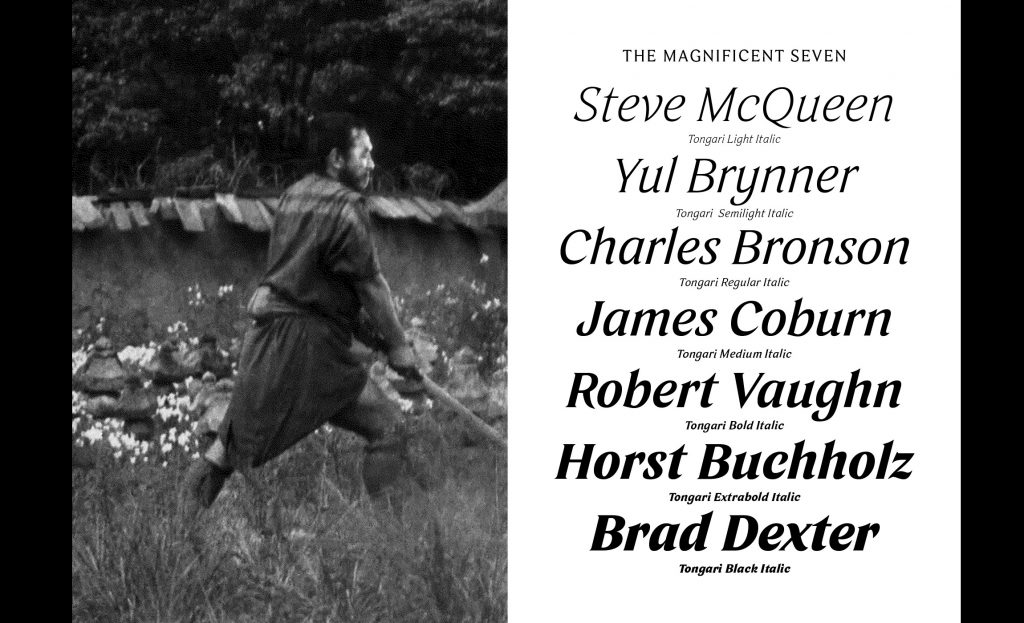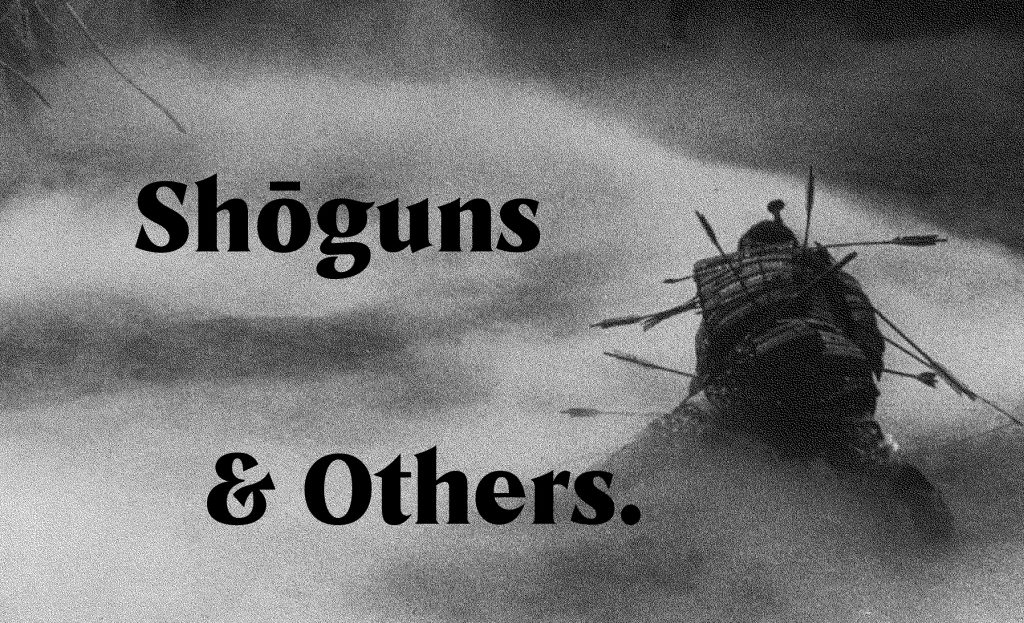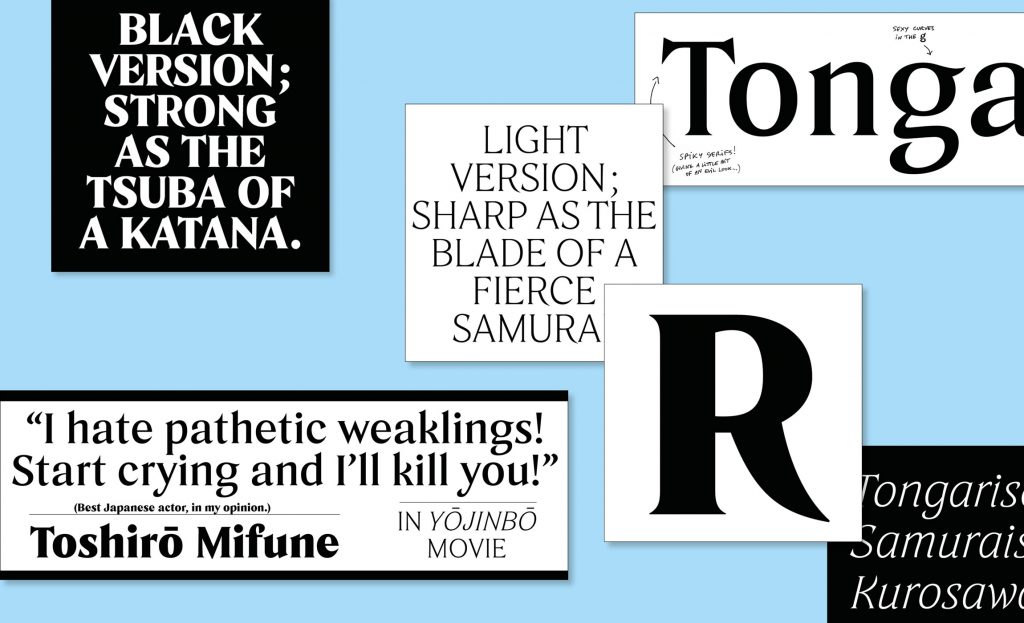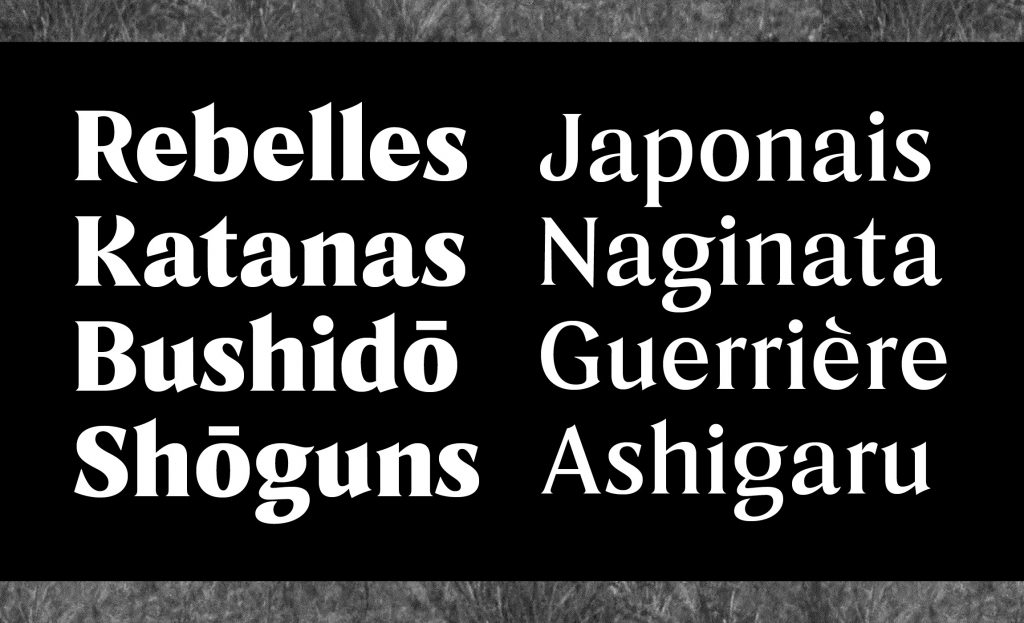
Name: Tongari Display
Designer: Émilie Rigaud
Foundry: A is for fonts
Back Story: Both Tongari Display and its companion Tongari Text are inspired by the razor-edged blades of samurai swords. The typeface comes in seven weights, from light to black, each standing in for one of the seven samurai of the legendary Akira Kurosawa film of the same name. In the film, a group of samurai unites to protect a village from marauding bandits. Each samurai has his own area of strength—the high-octane, impulsive, and comic actions of Kikuchiyo (played by Toshiro Mifune) stand in sharp contrast to the wise, patient leadership strategies of Kambei (Takashi Shimura), for example—but together they form a seamless team. Likewise, the delicate strokes of Tongari Display Light stand up to the assertive, shouty contours of the Black type without feeling less powerful by comparison.
Rigaud began designing the text face with medium-weight, high-contrast letterforms sporting very sharp endings, but found the characters too intense for good legibility over long passages of type. She decided to back-burner them for use in a display version later. “I refined the shapes of Tongari Display by hand over a long process,” she says. “I always do multiple sketches to craft the letters—print, redraw, scan it again—to give some small imperfections to a design and avoid the too-cold, perfect appearance that sometimes happens when using digital tools alone.”
Why’s it called Tongari Display? Tongari means “sharp-pointed” in Japanese.
What are its distinguishing characteristics? Tongari Display’s finely honed letterform terminals are its most notable characteristic. The capital R and K directly mirror the shape of the blade of a Japanese samurai sword (katana). The display characters feature a strong stroke contrast, higher x-height, and even sharper terminals than their text-weight counterparts. Many of the more detailed letters, such as the g with its sinuous curves and open tail, also vary widely from the text version.
What should I use it for? Tongari Display is a perfect fit for magazine headlines and posters, as well as exhibition design. “It could be interesting to use it on projects relating to Japan—an exhibition about Japanese art, for example—as the Japanese inspiration that I had in mind during the design process is visible in the final shapes,” says Rigaud.
What other typefaces do you like to pair it with? Of course Tongari Display works hand-in-hand with Tongari Text. For a stronger contrast, pair Tongari Display with a bold weight of a sans serif font, for example Naoko or Between.